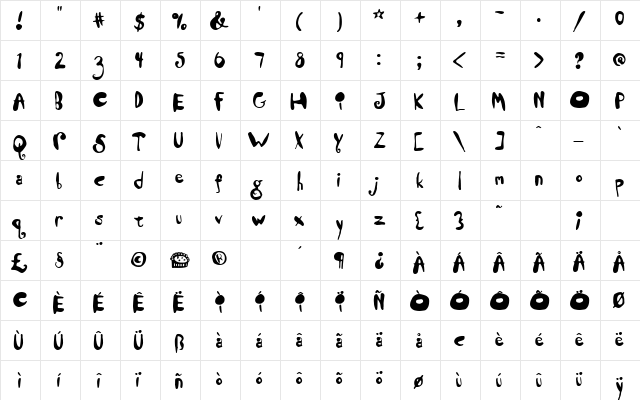
LillaFunk! Regular
Design Context for LillaFunk! Typeface
LillaFunk! has an approachable, lighthearted character — its loose, expressive forms are well-suited to children's content, casual branding, and fun-first design.
Font Pairing: Pairs well with a rounded or humanist sans for body copy, maintaining the friendly tone without relying on LillaFunk! to carry extended reading.
Pro Tip: Use LillaFunk! at larger display sizes where its expressive character can land. Pair with a clean, simple sans for body copy to maintain readability.